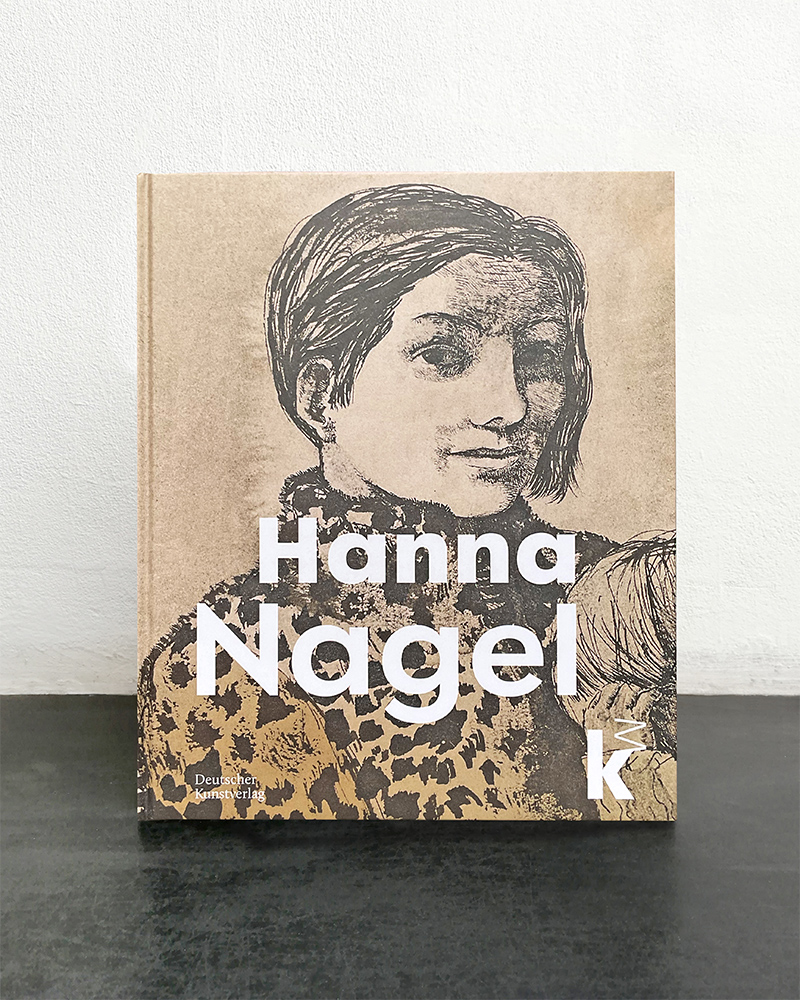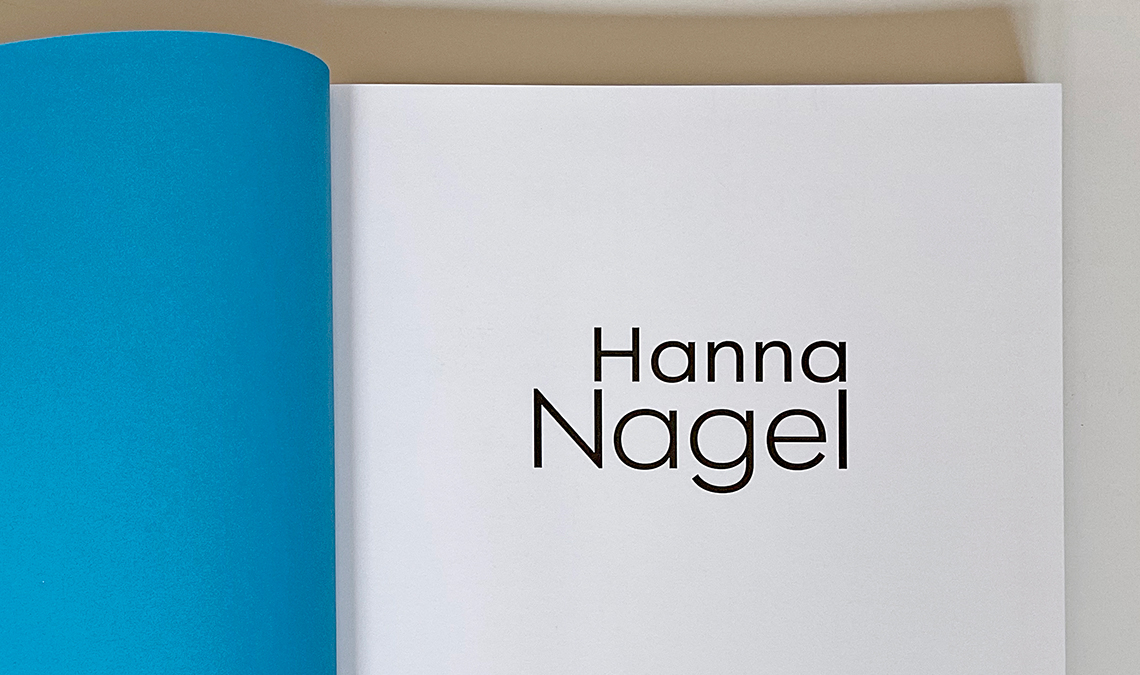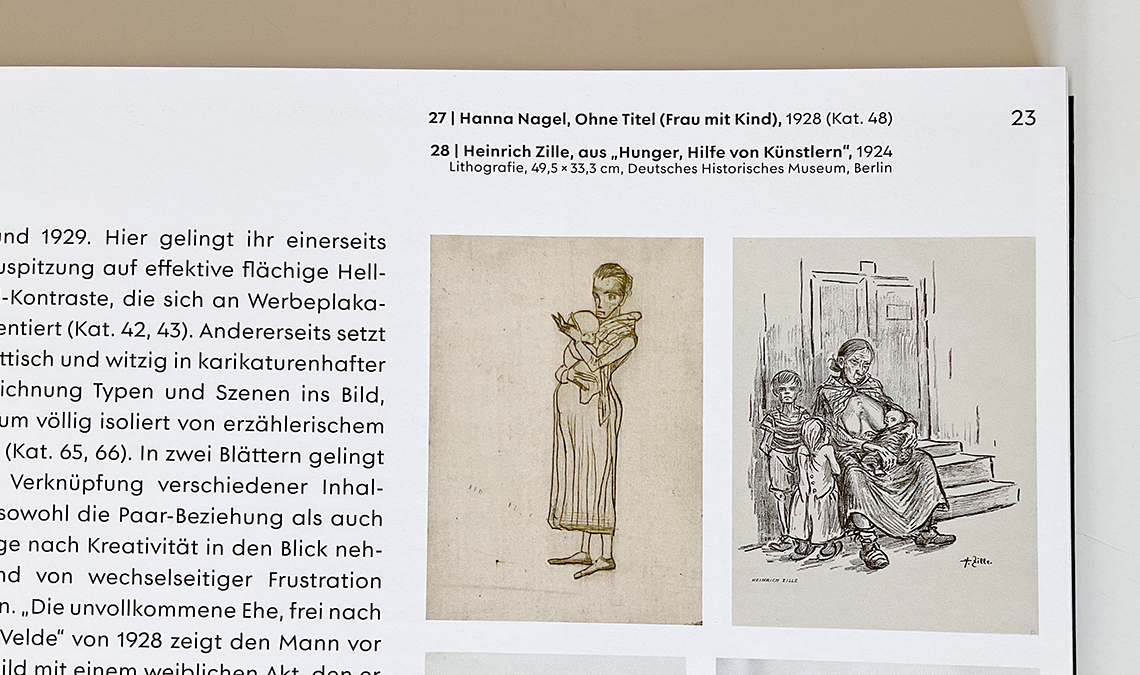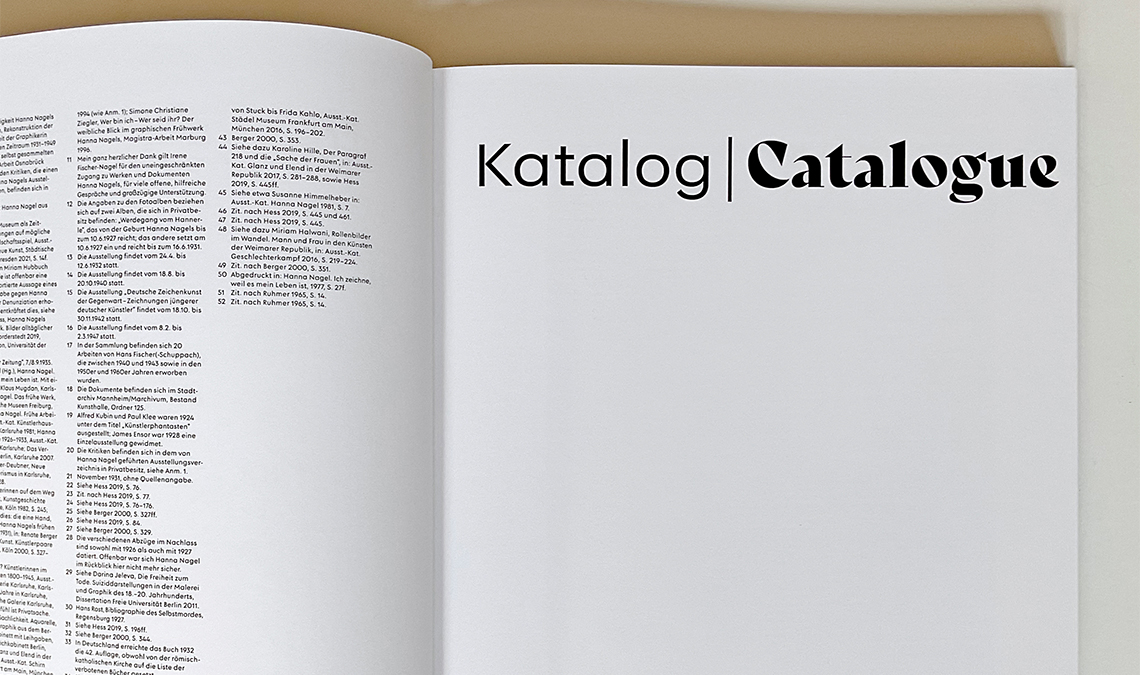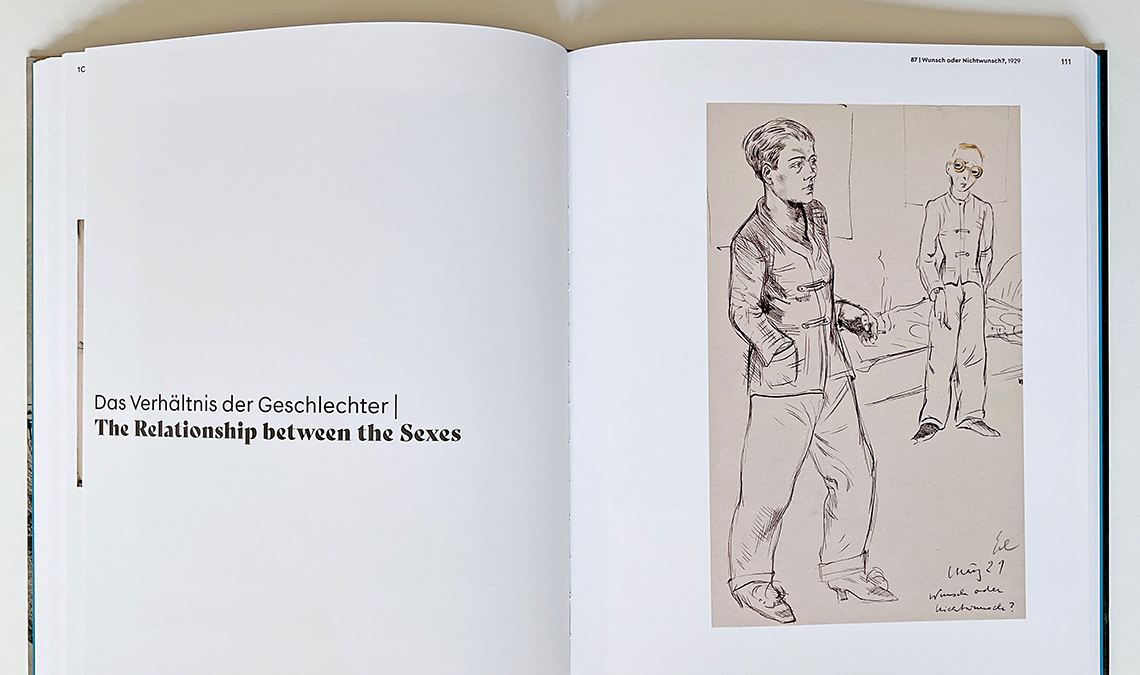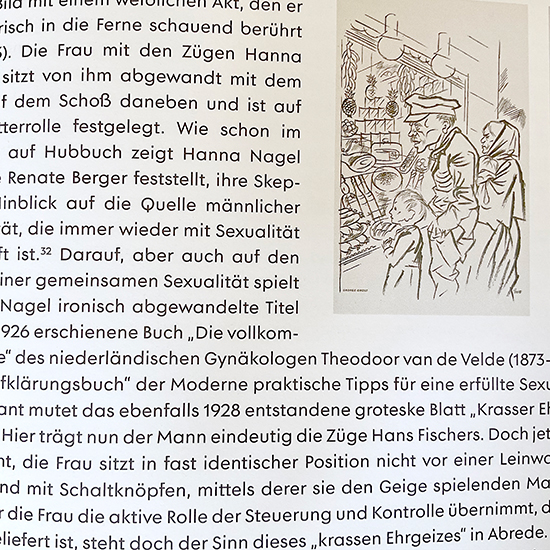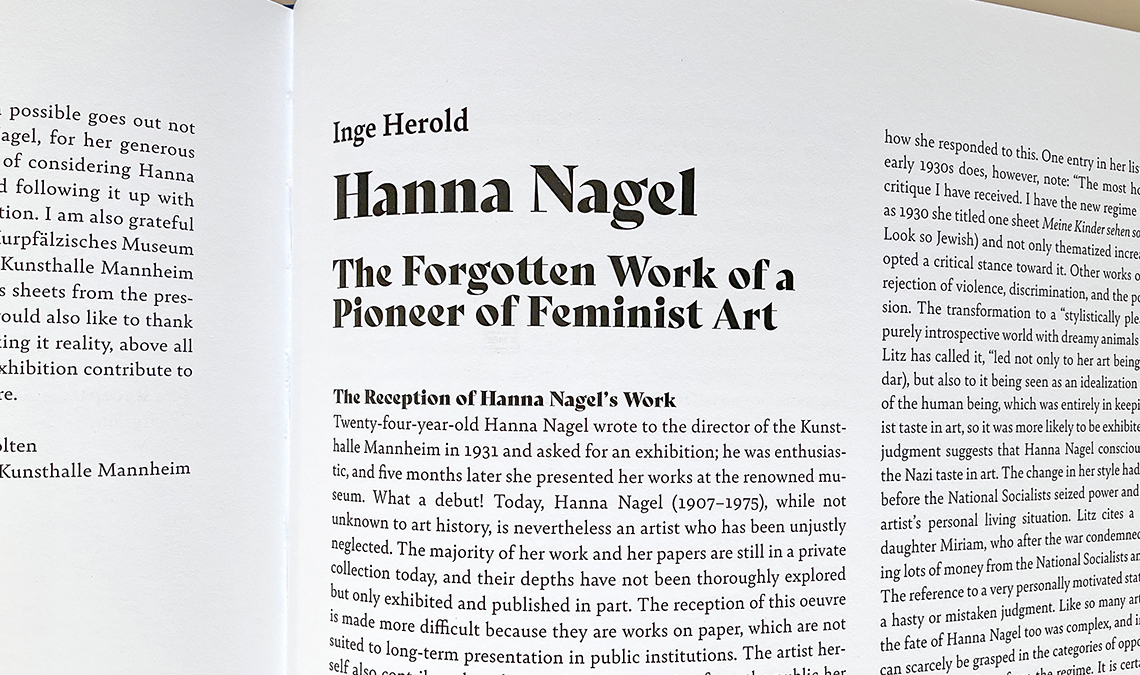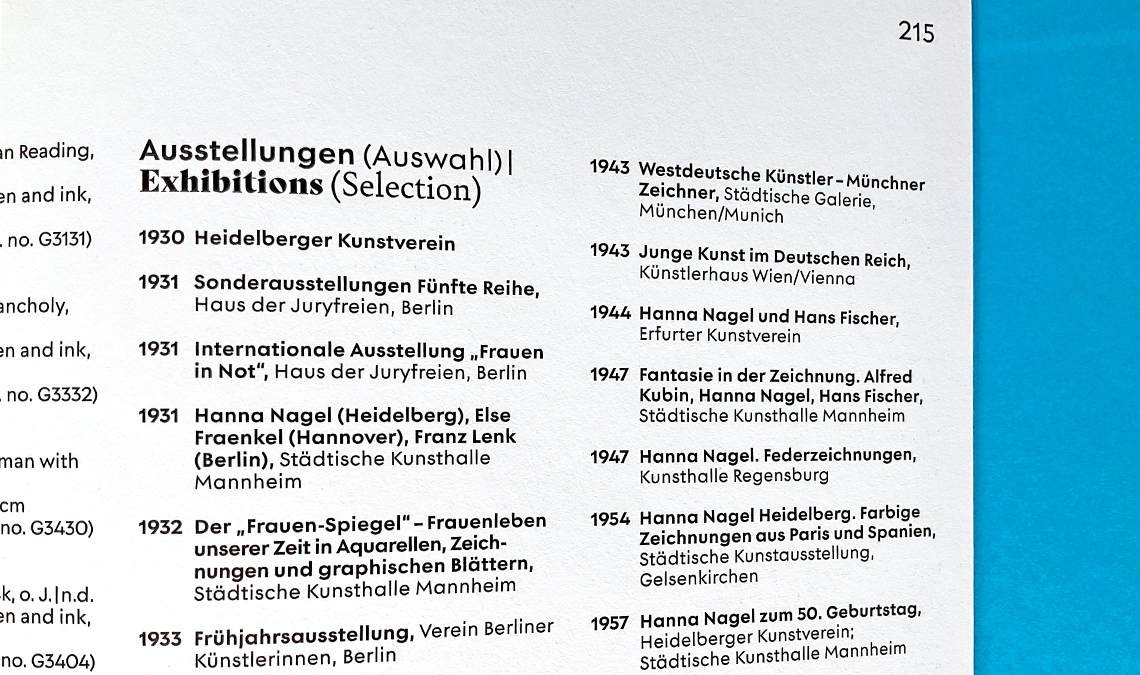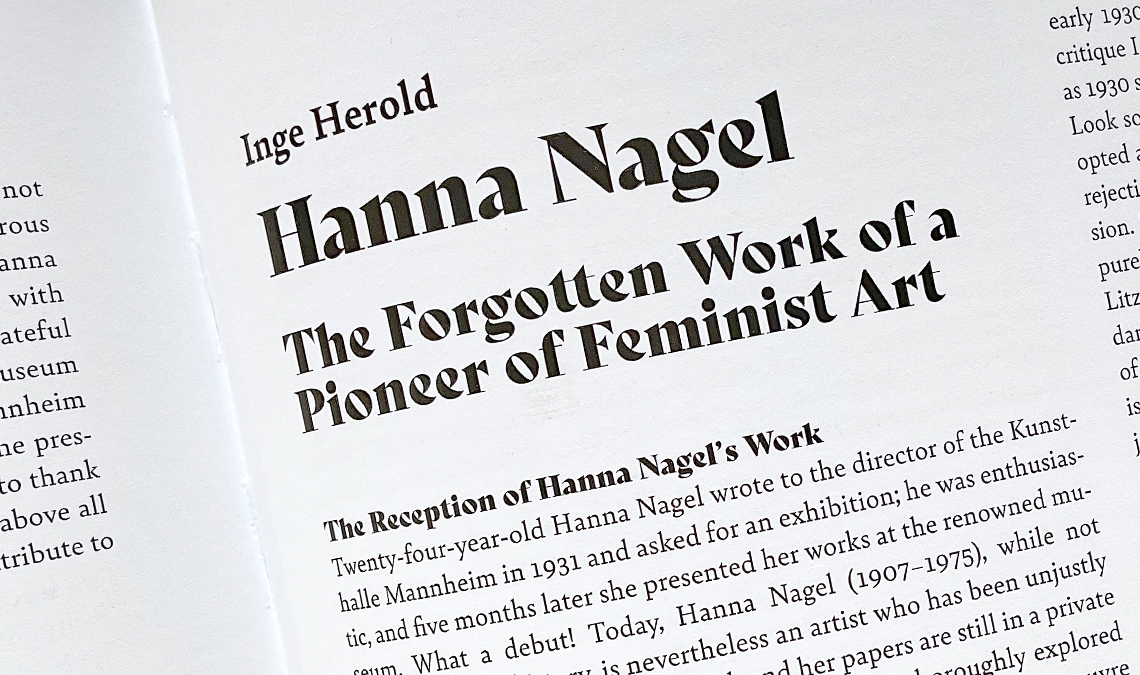
Postea & Bely in Hanna Nagel Exhibition Catalogue
The art catalogue for ‘Hanna Nagel: rediscovery of a pioneer of feminist art’ exhibition is a recent addition to TypeTogether’s collection of Type in Use.
Berlin-based graphic designer Verena Gerlach recently designed a 216-page catalogue for an extensive exhibition of the German feminist artist Hanna Nagel (1905–1975), held at the Kunsthalle Mannheim, Germany April–July 2022.
As the title of the show suggests, Hanna Nagel was one of the first 20th century feminist artists in Germany. She dealt more intensively than any other artist of her time with the relationship between man and woman, as well as the problematic life situation in the conflict between professional activity and motherhood. A large part of her work is privately owned and has so far only been published in fragments.
Verena Gerlach used TypeTogether’s Postea and Bely type families in the exhibition catalogue. While Roxane Gataud’s Bely (2016) has become a long-time favourite seen in use around the world, this is one of the first type in use examples of our recent release Postea, a contemporary geometric sans serif designed by Veronika Burian and José Scaglione in 2020.
As Verena Gerlach puts it, “Matching the feminist topics of Hanna Nagel’s art, I decided to go for two typefaces designed by female type designers: Postea, by Veronika Burian (& José Scaglione — yes, José is always welcome to be a lady of honour) for the German texts, with Bely and Bely display designed by Roxane Gataud for the English translations.”
Hanna Nagel Exhibition Catalogue (2022)
Exhibition curator: Dr Inge Herold
Designer: Verena Gerlach
Language: German and English
Hardcover, 216 pages, 196 illustrations
Dimensions: 225 × 270 mm